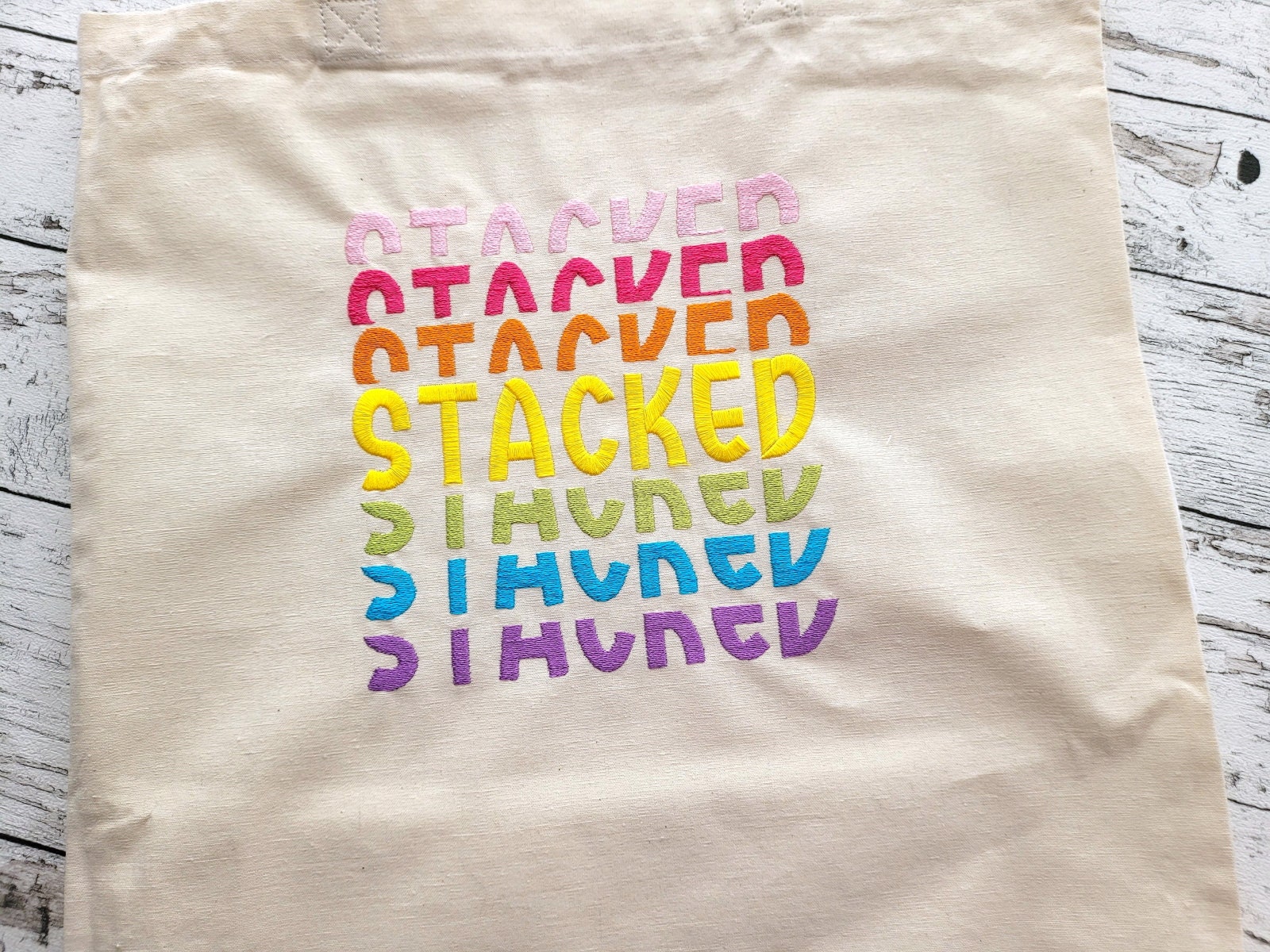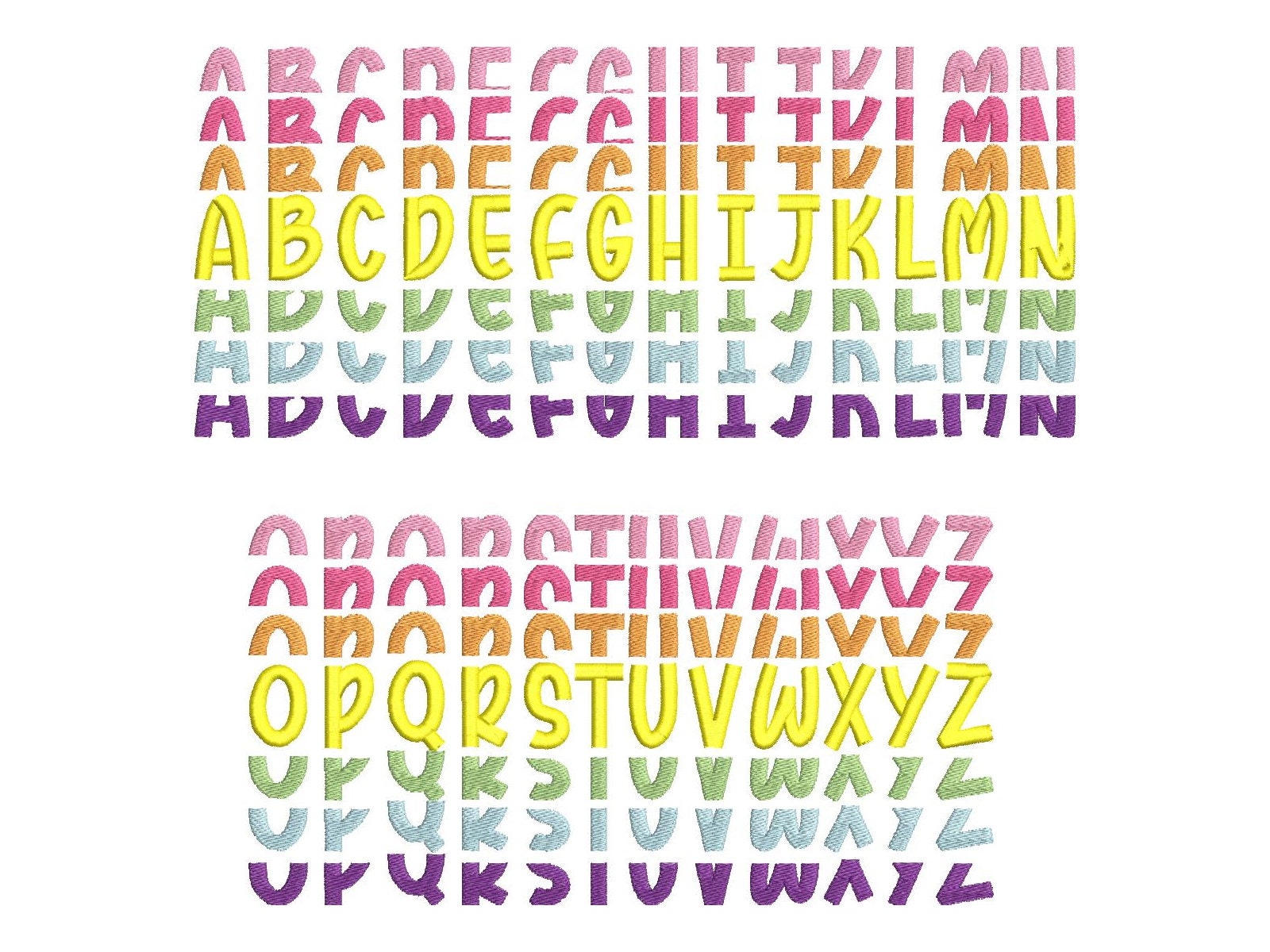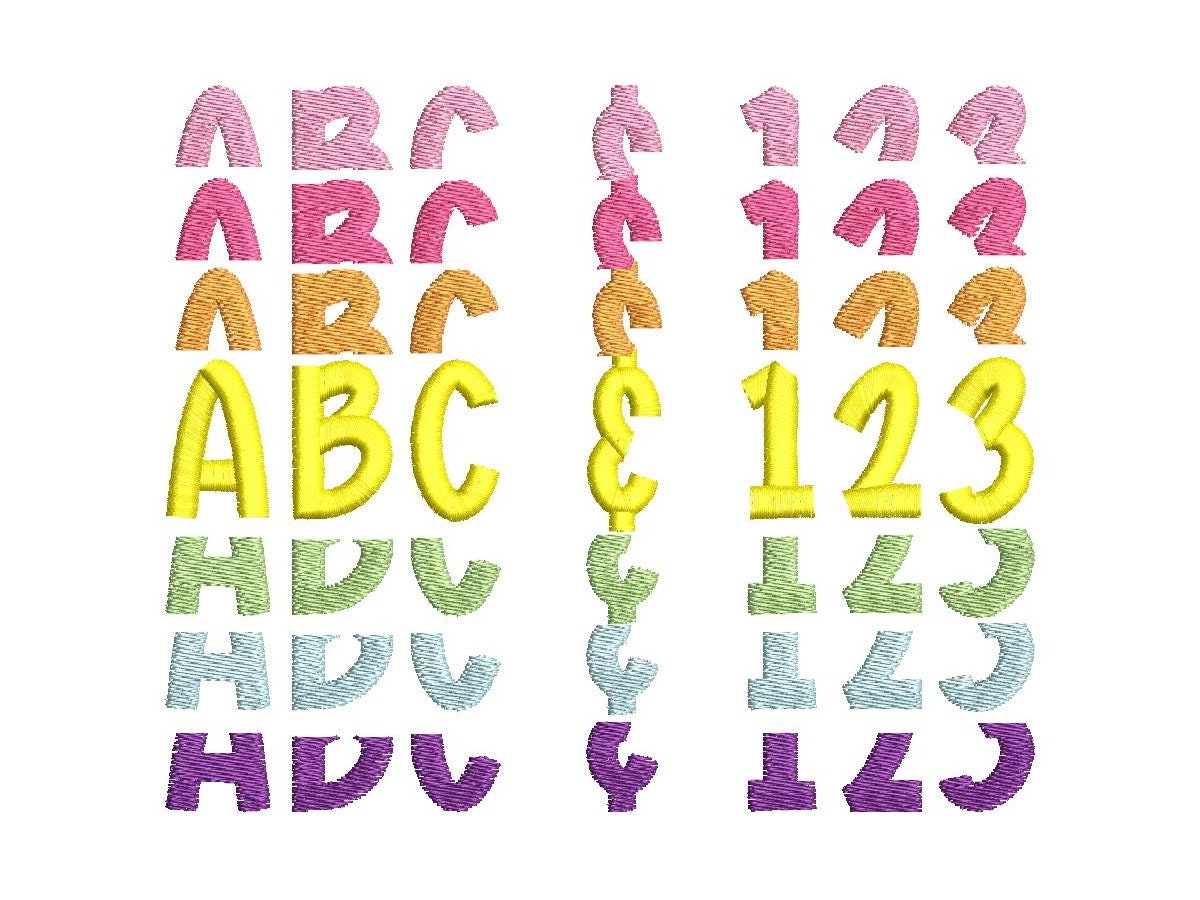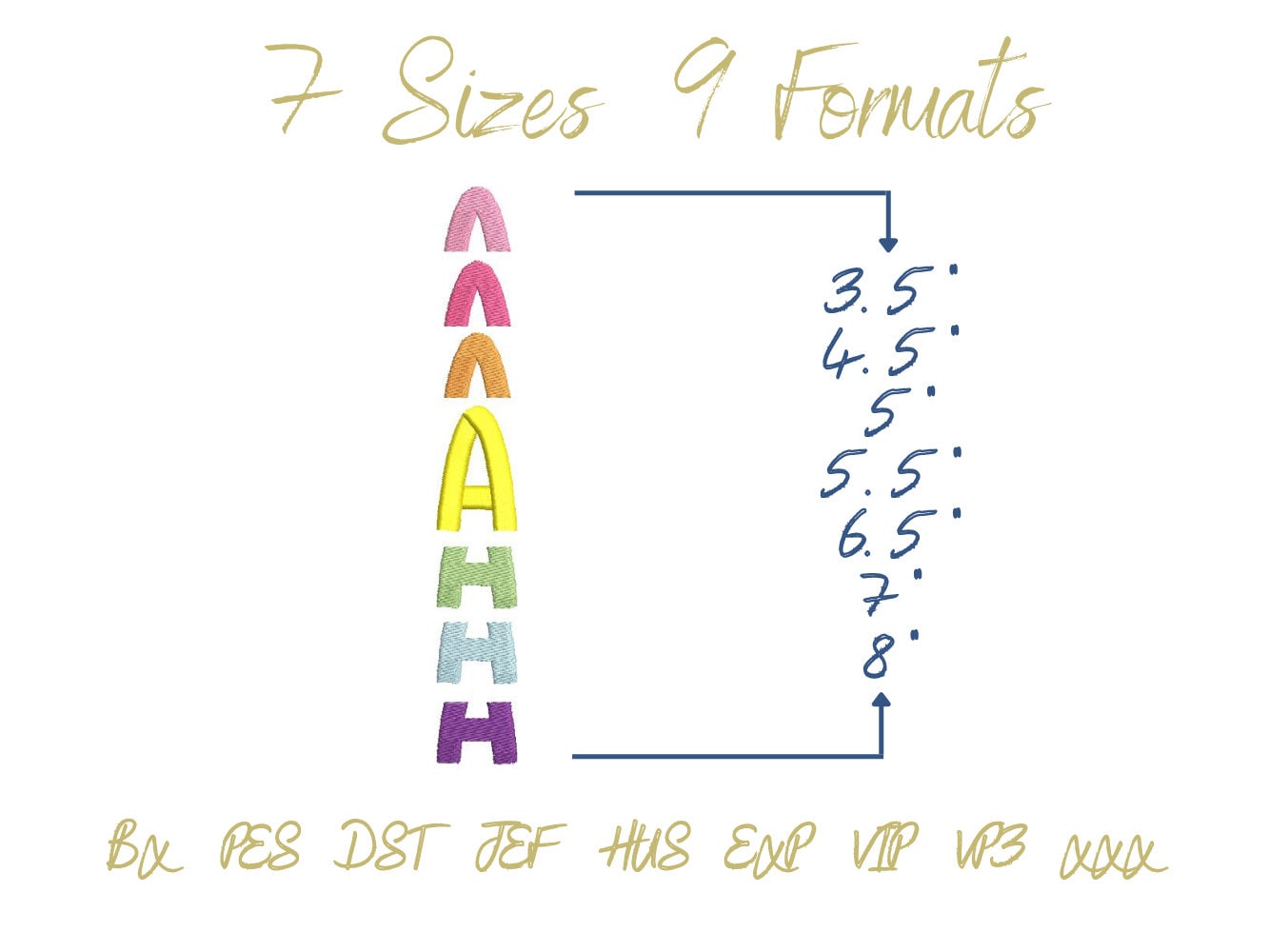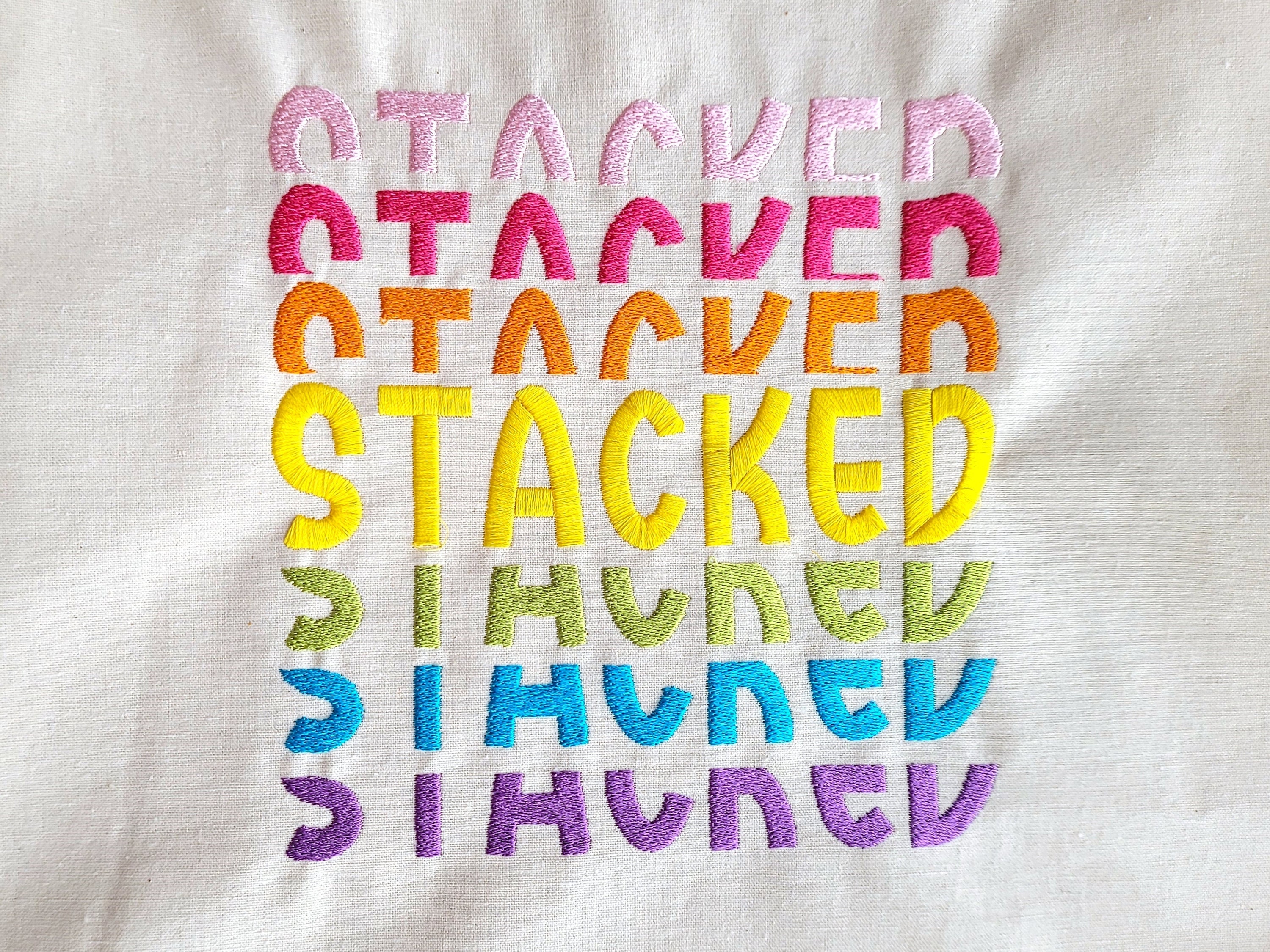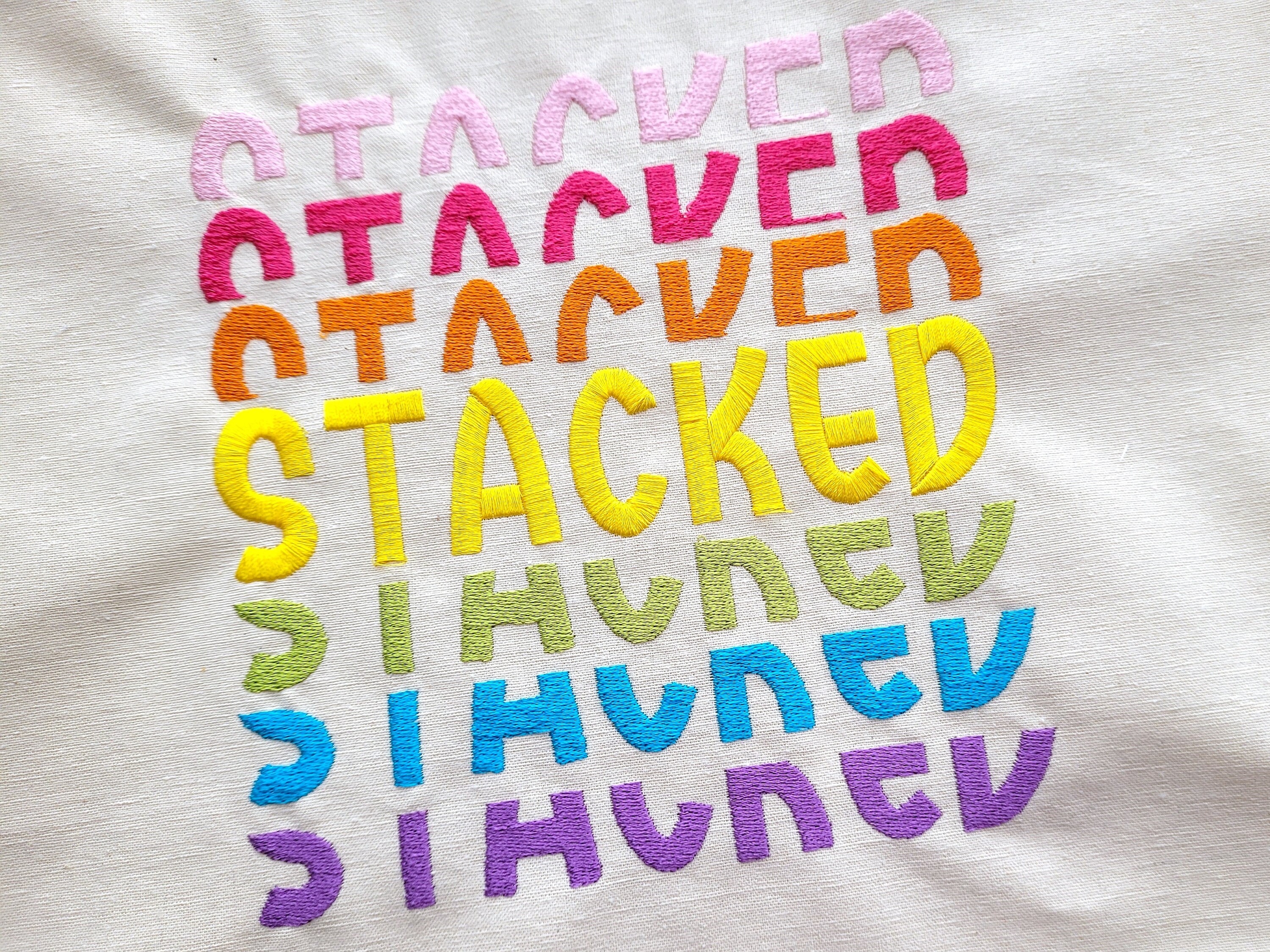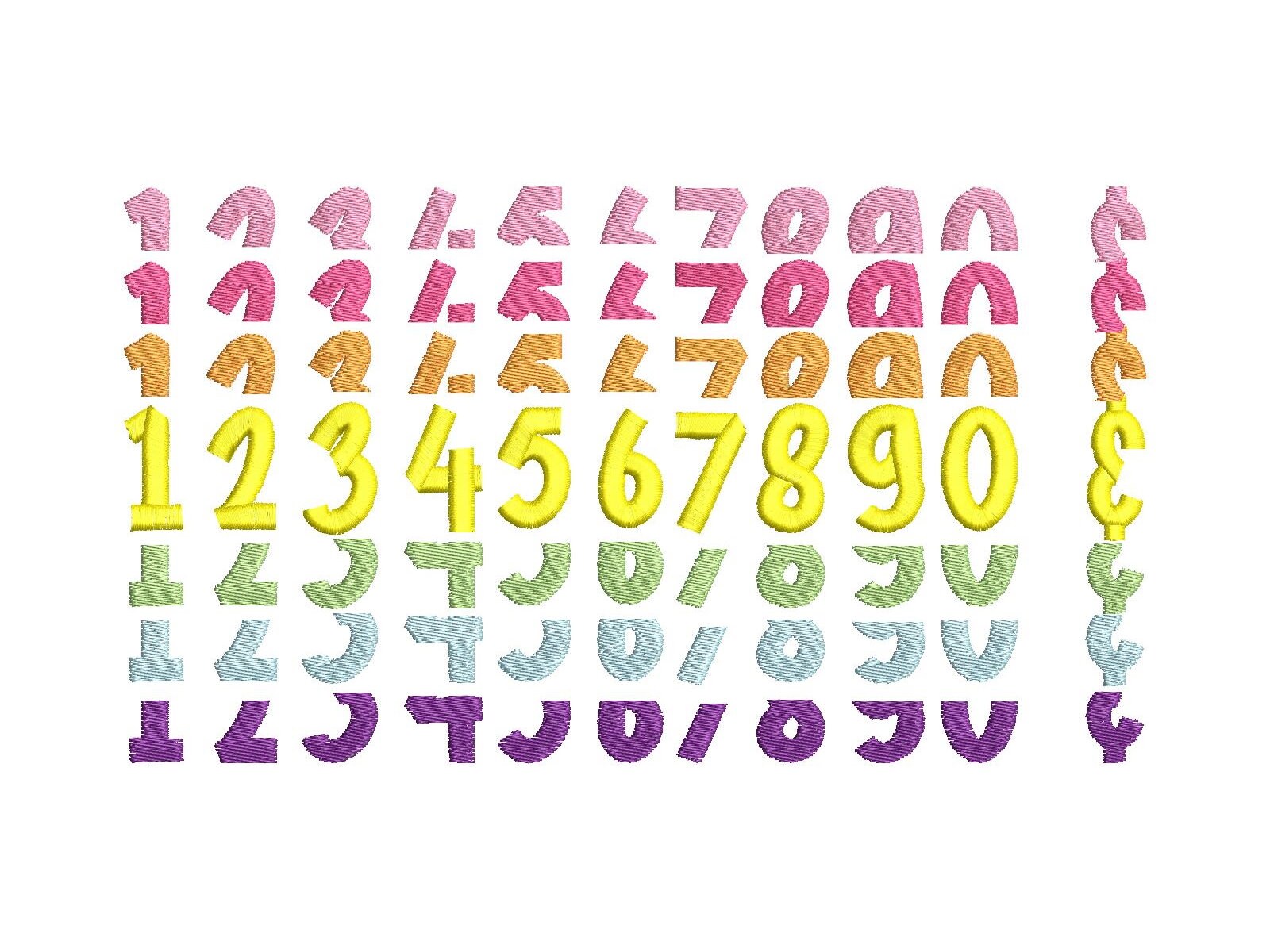
Stacked Font, satin stitch and outline trend alphabet letters, awesome kids name letters machine embroidery designs assorted sizes, BX included
The whole alphabet A-Z uppercase and numbers 0-9, and ampersand &